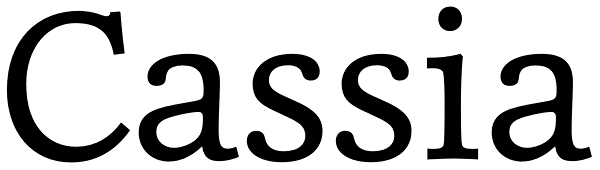
Cassia
Cassia - a dynamic 'Egyptienne' with contrasting Italics and a classical appearance.  More individual and agile and less cold than most Slab Serifs, it joins impetuosity with vitality. In display sizes it dazzles through its lusty appearance, and...